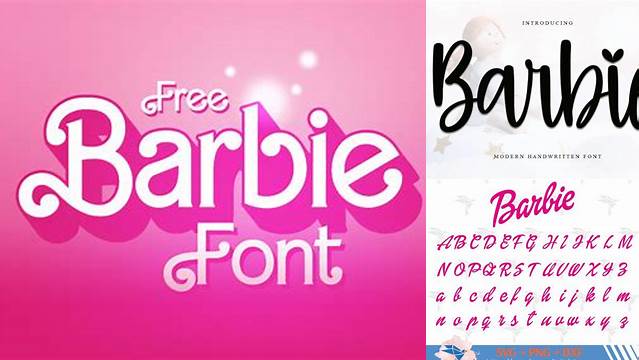
Barbie Script Font Free Download: Your Guide To Glamorous Designs
Are you a fan of the iconic Barbie and her signature style? Do you want to infuse your designs with the same playful, glamorous, and feminine touch? Then you're in luck! The Barbie script font is a fantastic choice for a wide range of creative projects. And the best part? You can often find a Barbie script font free download, making it accessible to everyone. Let's dive into everything you need to know about this beloved typeface, including where to find it, how to use it, and some design inspiration to get you started.
What Makes the Barbie Script Font So Special?
The Barbie script font isn't just any font; it's a statement. It evokes feelings of nostalgia, joy, and a touch of sophistication. Think about it – Barbie represents a world of dreams, fashion, and endless possibilities. Using a font inspired by her branding immediately adds a layer of recognition and aspirational value to your designs. The font typically features elegant, flowing letterforms that capture the essence of handwriting. This adds a personal and approachable feel, making your designs more engaging and relatable. Often, the Barbie script font is characterized by its:
- Elegant curves and loops: Creating a sense of movement and fluidity. This can be a huge asset when it comes to design, as it leads the eye and adds an element of visual interest. These curves and loops are what separates the barbie script font from other fonts of a similar type. You will find that they add a certain uniqueness to the font. These flowing letterforms are perfect for adding a personal and elegant touch to anything you design. They contribute to a sense of luxury and sophistication, that makes the font so unique.
- Feminine and playful aesthetic: Reflecting Barbie's iconic brand image. This makes them perfect for designs targeting women. When you're targeting a certain demographic, you need to take into consideration the elements of design that they gravitate towards. The feminine aesthetic is perfect for attracting women to your brand and design.
- Versatility: Suitable for various design applications, from branding to social media. The font allows you to take advantage of its versatility. This is something that you will absolutely want when it comes to any font. There is nothing worse than having a font that can only be used in a specific situation. That is why the versatility of the font, can be a huge asset in certain designs.
Unleash Your Creativity: Design Inspiration
The Barbie script font is perfect for a wide range of design projects. Here are a few ideas to spark your creativity:
- Branding and logos: Create a logo that reflects the brand's essence, especially for businesses targeting women or girls. This is important for establishing brand recognition, and makes the logo easier to remember. A logo with a Barbie script font is guaranteed to be remembered, because of how popular the font is. This can be a great asset for any brand, and a great first step for your logo.
Conclusion: Embrace the Barbie Aesthetic
The Barbie script font is a fantastic tool for designers looking to add a touch of elegance, femininity, and playfulness to their work. With a little searching, you can easily find a Barbie script font free download and start experimenting with its creative possibilities. Whether you're designing a logo, social media graphics, or invitations, this font can help you create visually stunning and memorable designs. So go ahead, download a font, and let your creativity shine! The Barbie script font is a timeless asset that is sure to bring joy to your designs. So don't hesitate, and try it out today! You're sure to love it. If you follow the tips and guidelines mentioned in this article, you are sure to make fantastic designs with the Barbie script font.